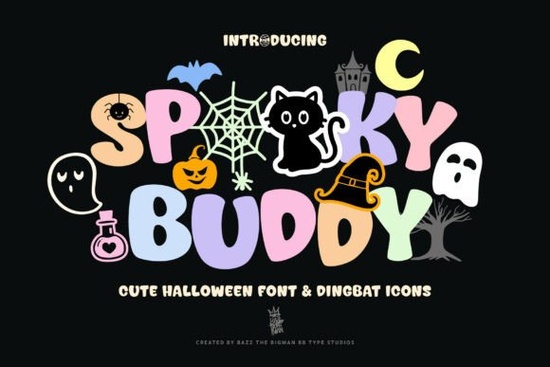
Spooky Buddy Font is a fun and versatile typeface that adds a playful, Halloween-themed twist to any design. Whether you're creating party invitations, t-shirts, or seasonal decorations, this font offers a unique combination of bold uppercase letters and spooky dingbat icons. The lowercase characters, numbers, and punctuation are mapped to festive Halloween symbols, making it easy to add a touch of whimsy to your projects without extra effort.
One of the best features of Spooky Buddy Font is its flexibility. It works well for both digital and print projects, making it ideal for designers, crafters, and small businesses. You can use it to create eye-catching posters, custom stickers, or even personalized greeting cards. Its bold style ensures that it remains readable while still adding a sense of fun and celebration.
For those who enjoy crafting with tools like Cricut or Silhouette, this font is a great addition to your collection. It pairs well with other Halloween-themed elements, allowing you to create cohesive designs for events, school projects, or handmade products. The inclusion of dingbat icons means you can quickly add spooky elements like pumpkins, ghosts, and witches without needing to search for separate images.
When working on seasonal decorations or promotional materials, having a font that feels both creative and professional is essential. Spooky Buddy Font strikes the right balance between playful and polished, making it suitable for a wide range of applications. It's especially useful for print-on-demand sellers who want to offer unique, themed products without investing in complex design work.
- Party Invitations: Add a spooky touch to your Halloween event invites with bold letters and fun icons.
- T-Shirts and Stickers: Create custom designs that stand out with the font’s unique character set.
- Classroom Activities: Use it for themed lesson plans or student projects with a fun, seasonal flair.
- Seasonal Decorations: Enhance your home or business decor with eye-catching signs and banners.
Whether you're designing for personal use or commercial purposes, Spooky Buddy Font offers a simple way to incorporate Halloween elements into your work. Its ease of use and visual appeal make it a valuable tool for anyone involved in creative projects during the fall season.
Spooky Buddy Font is more than just a decorative typeface it’s a practical solution for adding personality to your designs. Unlike generic fonts, it includes a set of icons that map directly to standard characters, which saves time and effort. This makes it ideal for users who want to create themed content quickly without compromising on quality.
Overall, Spooky Buddy Font is a great choice for anyone looking to add a fun and festive element to their creative work. Its combination of bold text and playful icons makes it a standout option for Halloween-related projects, and its versatility ensures that it can be used across multiple platforms and mediums.